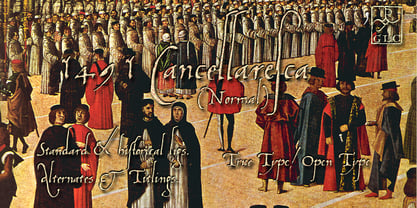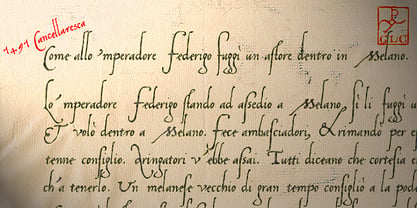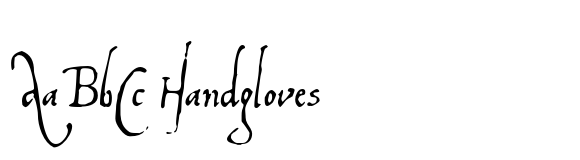
1491 Cancellaresca
This font was inspired by the very well-known humanistic script called "Cancellaresca".
This variant was used by a lot of calligraphers in the late 1400s, specially by the Venetian Giovannantonio Tagliente, whose patterns were mainly used for this font. You can compare this with 1610 Cancellaresca.
Numerals were inspired by Da Vinci manuscripts, from the same period. We added accented characters and a few others not currently existing at the time. A lot of titling alternates and ligatures are also included.